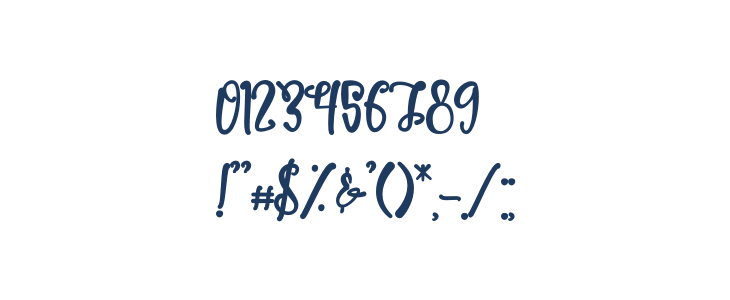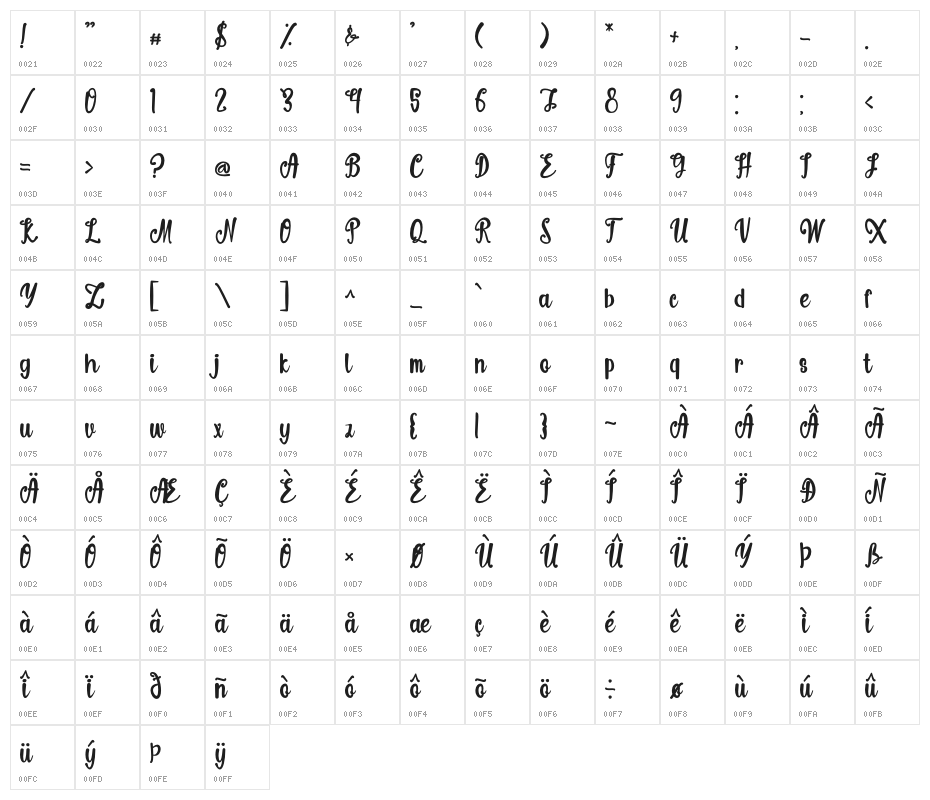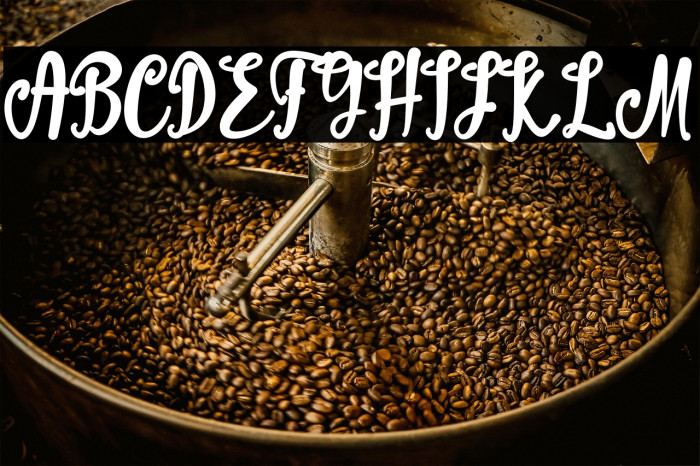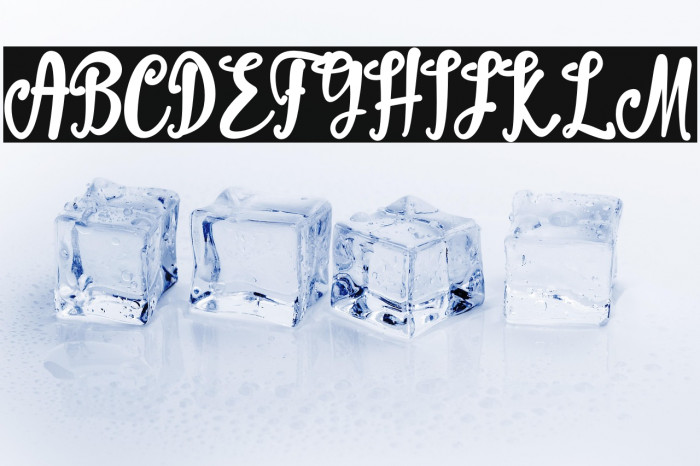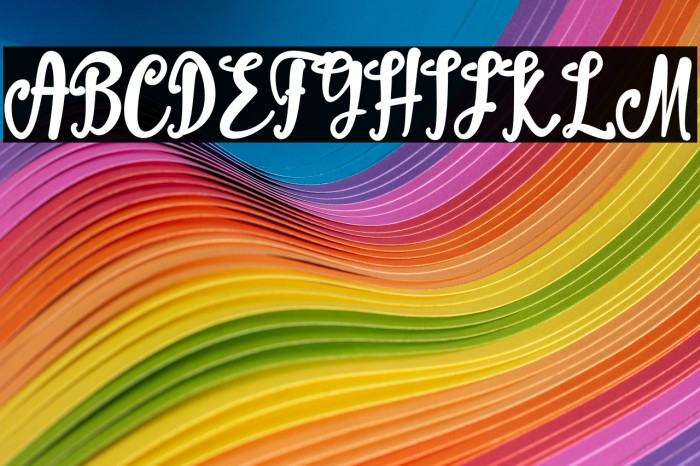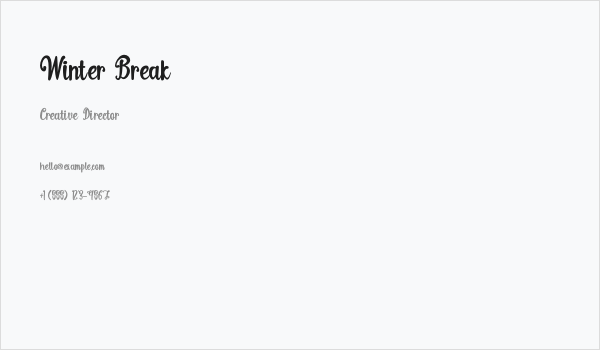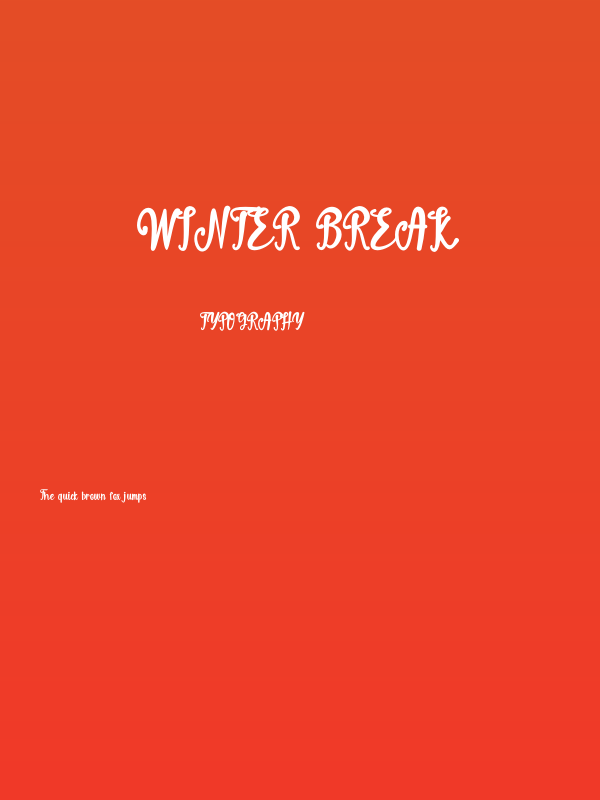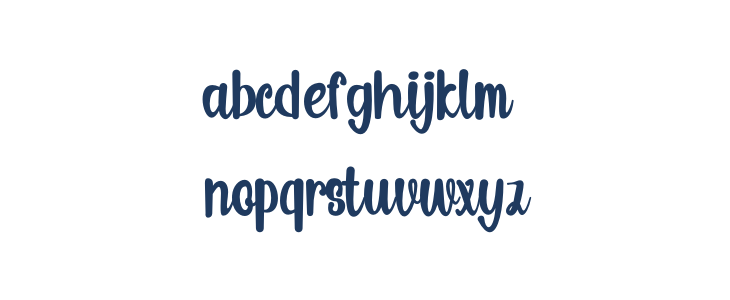
Winter Break Font
Winter Break Description
This font features a playful and flowing script style, characterized by its smooth, connected letters and elegant curves. The uppercase letters are bold and prominent, while the lowercase letters maintain a consistent flow, creating a harmonious balance. The numbers and special characters are designed to match the overall aesthetic, with a whimsical touch that adds to the font's charm. The strokes are moderately thick, providing good readability while maintaining a decorative flair. This font is ideal for projects that require a personal, handwritten feel.
| Proposed Projects | Ideal for wedding invitations, greeting cards, logos, and branding materials that require a personal touch. |